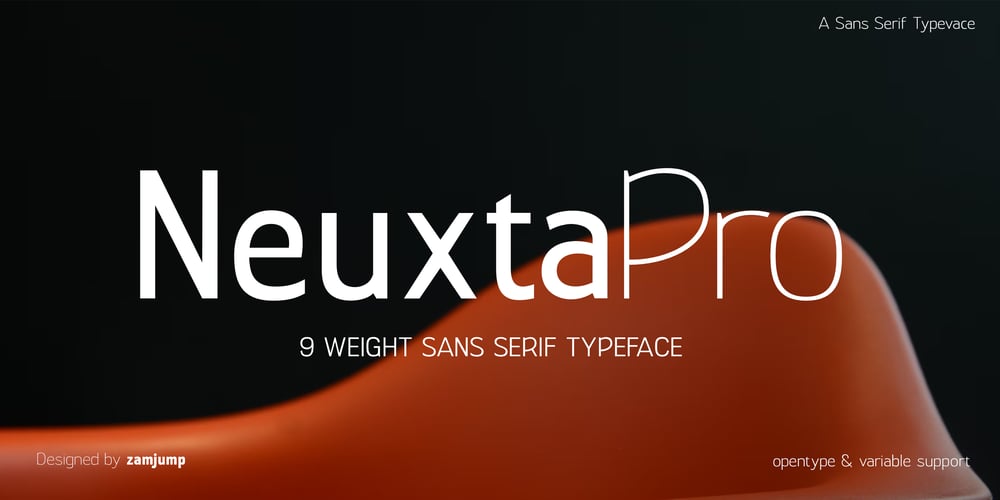
Neuxta Pro Font Family was designed by Zamjump, Ahmad Zamzami and published by Zamjump. Neuxta Pro contains 9 styles and family package options. NeuxtaPro is a modern sans serif typeface designed to elevate your creative projects. Featuring nine distinct weights, ranging from the delicate Thin to the bold and striking Black, NeuxtaPro offers unmatched versatility. Its clean, minimalist design makes it perfect for a wide range of applications, including branding, editorial layouts, UI/UX design, and more. Whether you need a subtle, light touch or a commanding, heavy presence, NeuxtaPro ensures your work stands out with clarity and precision.With its extensive weight options, NeuxtaPro simplifies the process of creating visual hierarchy and contrast within a project. Effortlessly switch between weights to achieve the perfect balance for headlines, body text, or callouts. NeuxtaPro adapts to any context, making it an indispensable tool for designers seeking flexibility and consistency in their typography.